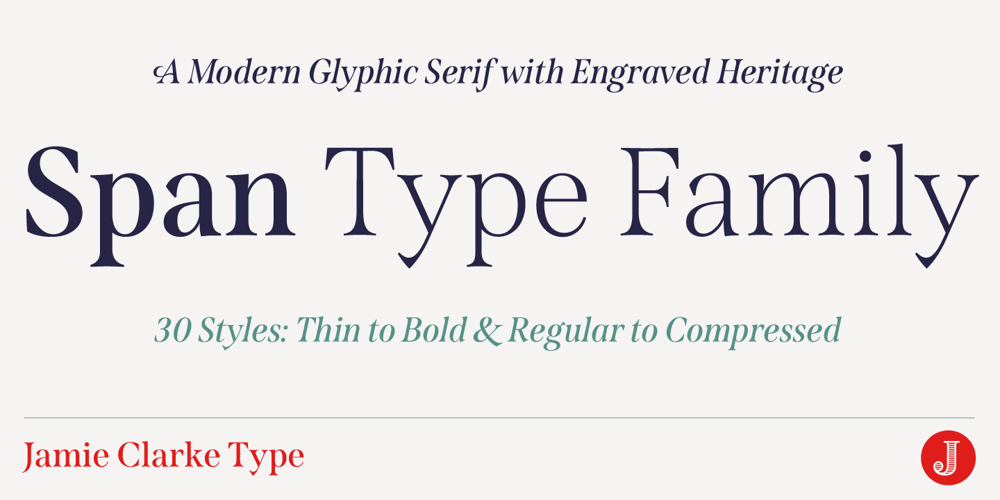
Span Font Family was designed by Jamie Clarke and published by Jamie Clarke Type. Span contains 30 styles and family package options. Span is a modern chiseled style family that flaunts its engraved heritage with sweeping serifs and sculptural forms. Bridging the contemporary and traditional, Span appears exuberant yet dignified.Designed primarily for luxurious headlines and titles, Span’s strong vertical stress is softened by elegant organic curves while its compact height accentuates the deep serifs. The family offers five weights, each with three widths and italics.The condensed styles provide an invaluable advantage when designing within narrow spaces. Span’s italics strike a balance between true italics and oblique letterforms to create a change in rhythm while preserving its chiselled style.A variety of additional features enhance Span’s typographic capabilities including restrained swashes and flourishes are available in both roman and italic styles.Span also introduces an additional set of capitals for exceptional typographic control over uppercase settings. ‘Mid Caps’ sit midway between full-height capitals and lowercase letters and extend Span’s title setting options to All Capitals, Capitals with Mid Caps and Capitals with Small Caps. Choose Span and take full control over your title settings and produce classic typography with statuesque poise. Overview: 30 styles comprised of 5 weights, 3 widths and accompanying italics Additional features include alternate characters, swashes, Small Caps and Mid Caps 987 glyphs per style.See the specimenhttps://jamieclarketype.com/wp-content/uploads/2023/08/Span-JCT-Specimen-v1.pdfSupported Languages: Albanian, Asturian, Basque, Breton, Bosnian, Catalan, Croatian, Czech, Danish, Dutch, English, Estonian, Faroese, Finnish, Filipino, French, Galician, German, Hungarian, Icelandic, Indonesian, Irish, Italian, Kurdish, Latin, Latvian, Lithuanian, Malay, Maltese, Moldavian, Norwegian, Occitan, Polish, Portuguese, Romanian, Samoan, Serbian (Latin), Slovak, Slovenian, Spanish, Swahili, Swedish, Tagalog, Turkish, Walloon, Welsh, Wolof, Zulu and more.